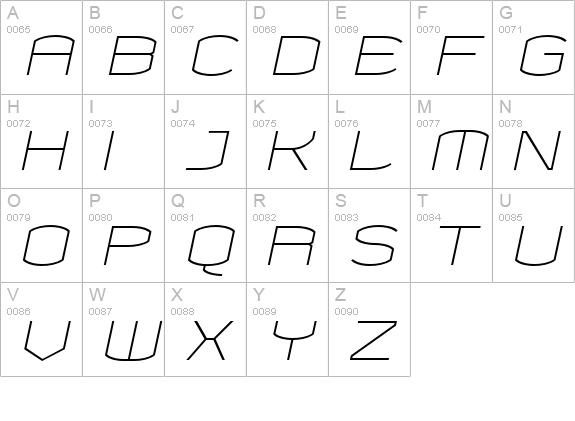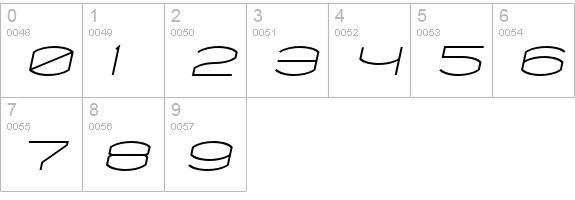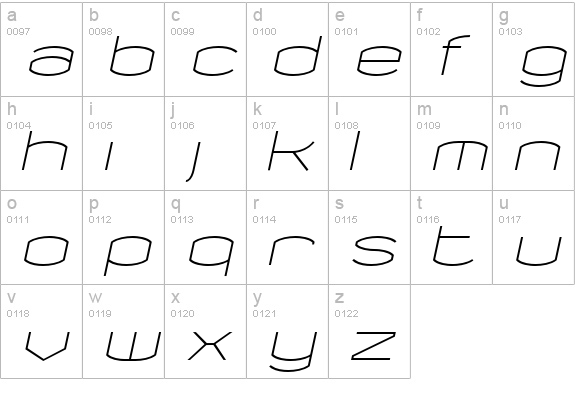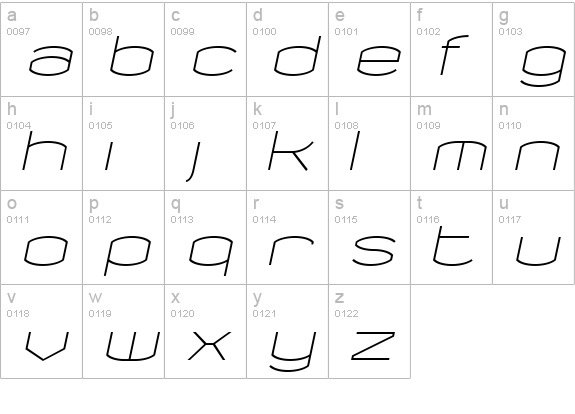
Chord-RegularItalic Font Details
Chord-RegularItalic font is a sleek and elegant typeface that exudes sophistication and style. Its italicized design adds a touch of flair and creativity to any project. With its balanced proportions and smooth curves, this font is perfect for creating a modern and professional look. Whether you are designing a logo, website, or print materials, Chord-RegularItalic font will surely make a statement. The best part is that Chord-RegularItalic font is free to download at FontsMarket.com. So, you can easily access this high-quality font without any cost. Don't miss out on the opportunity to enhance your designs with this beautiful typeface. Download Chord-RegularItalic font today and take your projects to the next level!